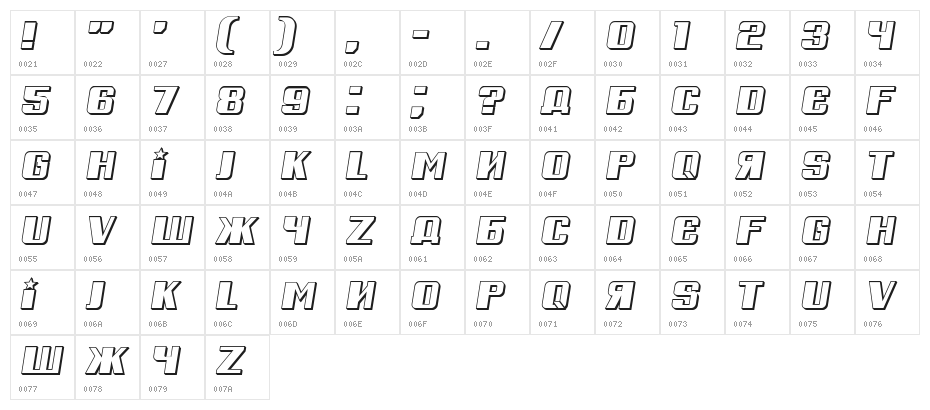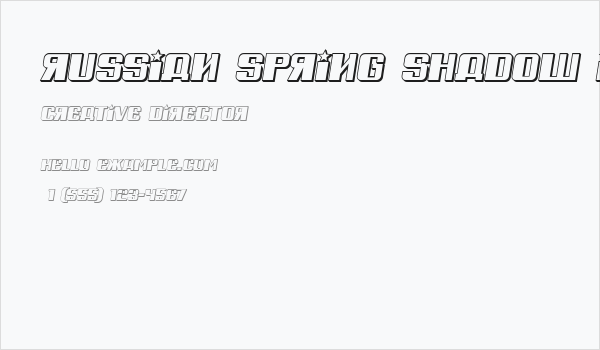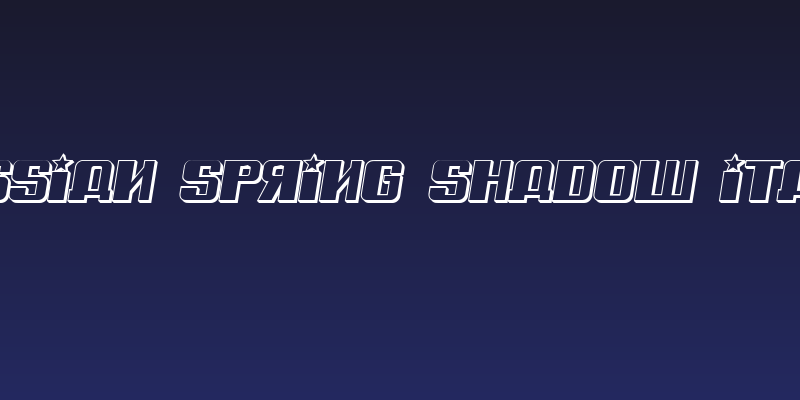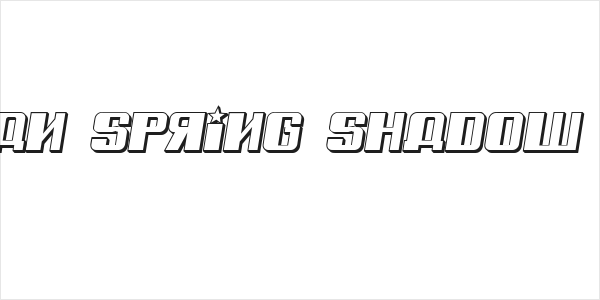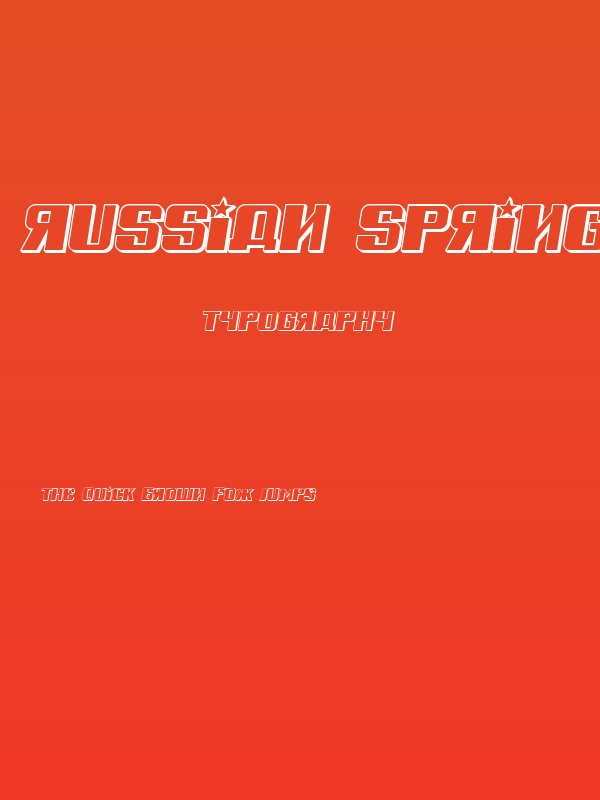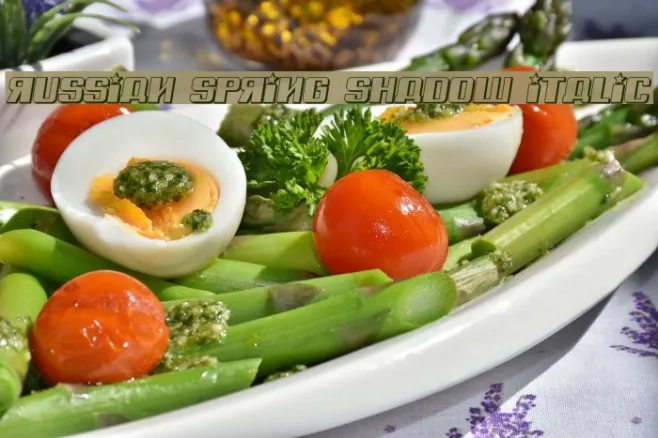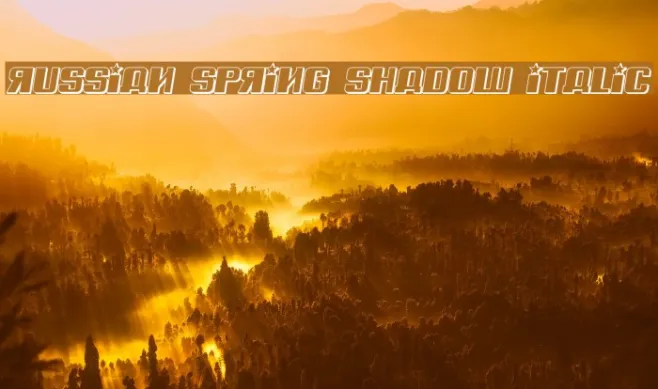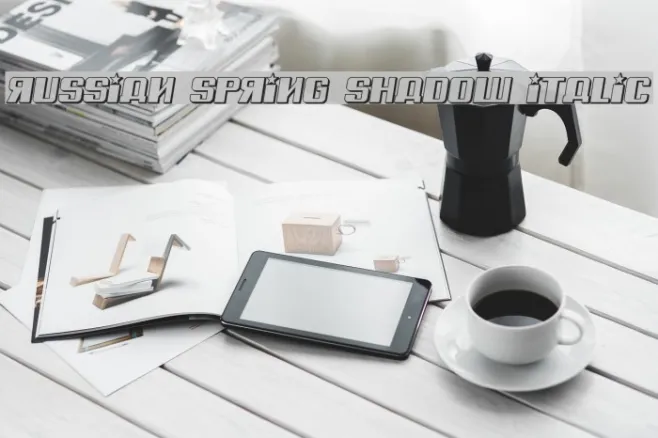
Russian Spring Shadow Italic Font
Russian Spring Shadow Italic Description
This font features a bold, shadowed style with a distinct italic slant, giving it a dynamic and energetic appearance. The characters are outlined with a thick border, adding depth and a three-dimensional effect. The uppercase letters are prominent and include unique elements such as stars within certain characters, enhancing its decorative appeal. The numbers and special characters maintain the same bold and shadowed style, ensuring consistency across all glyphs. This font's design is both eye-catching and impactful, making it suitable for attention-grabbing applications.
| Proposed Projects | Ideal for posters, headlines, logos, and any design requiring a bold, impactful typeface. |